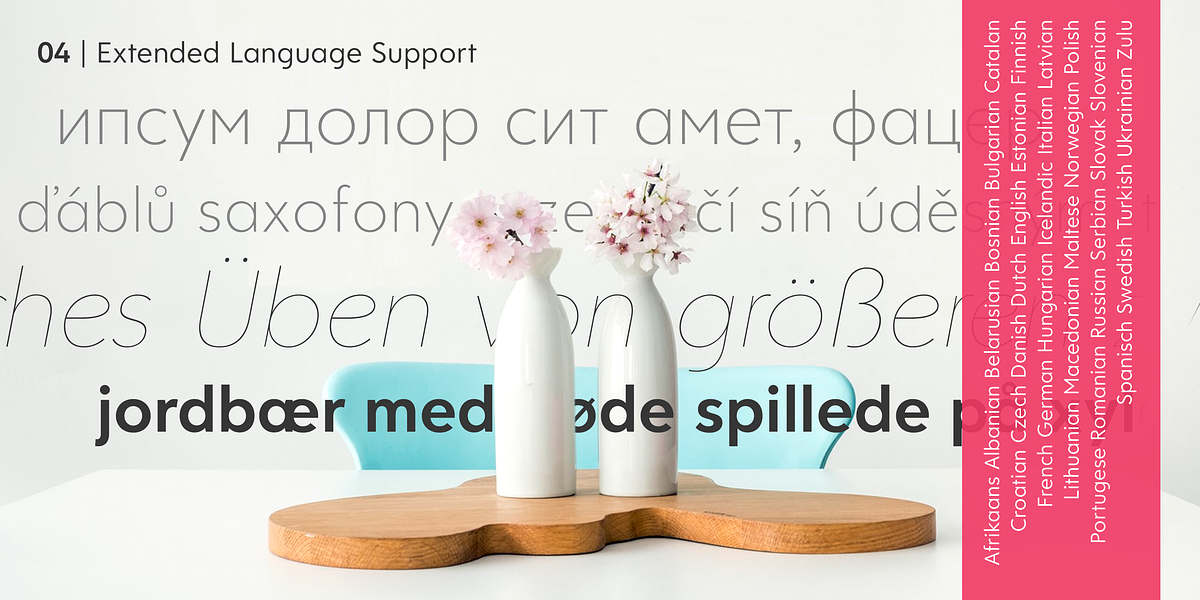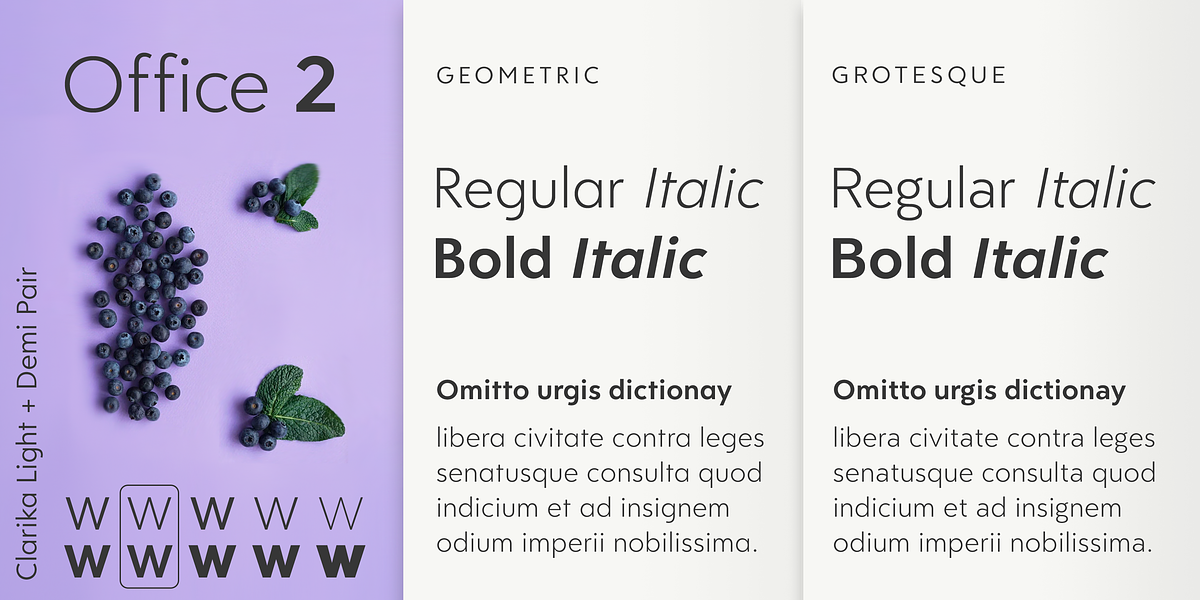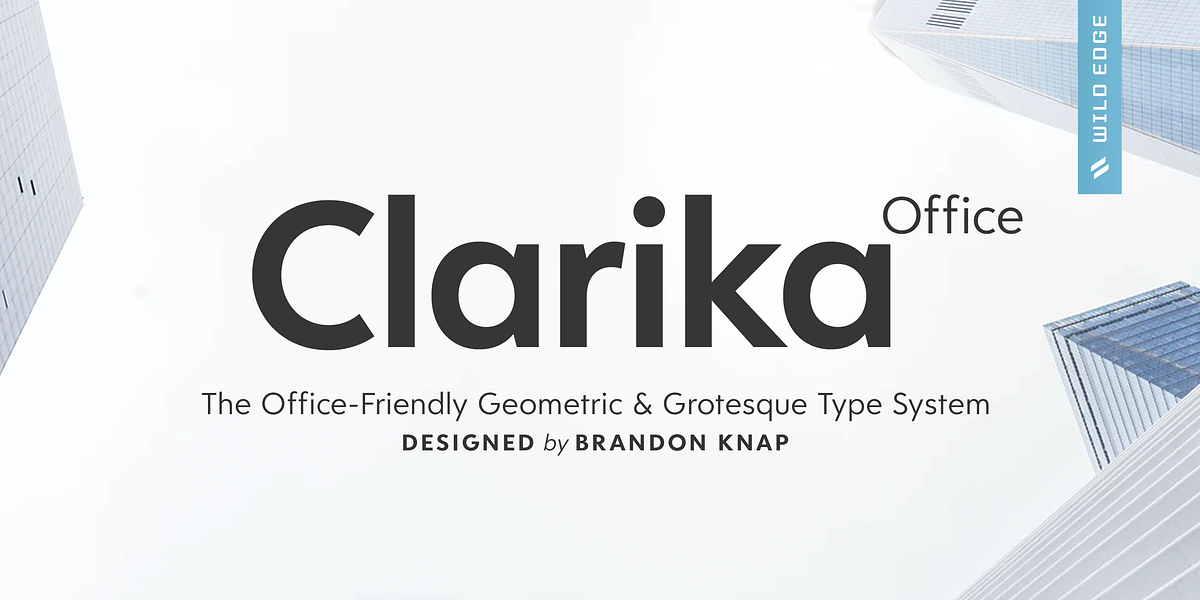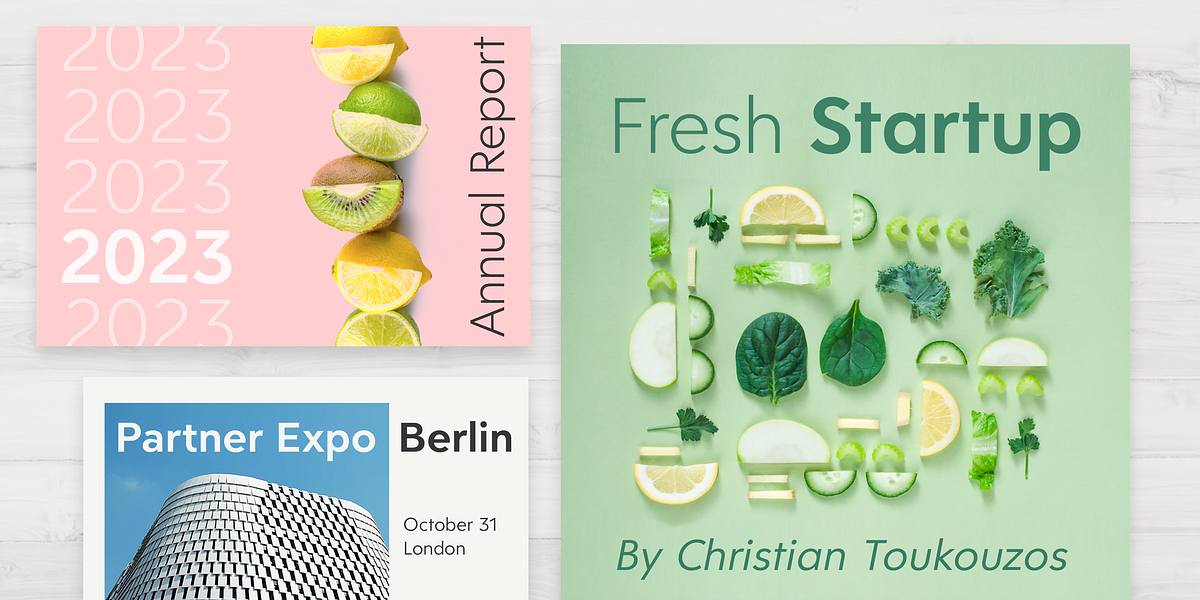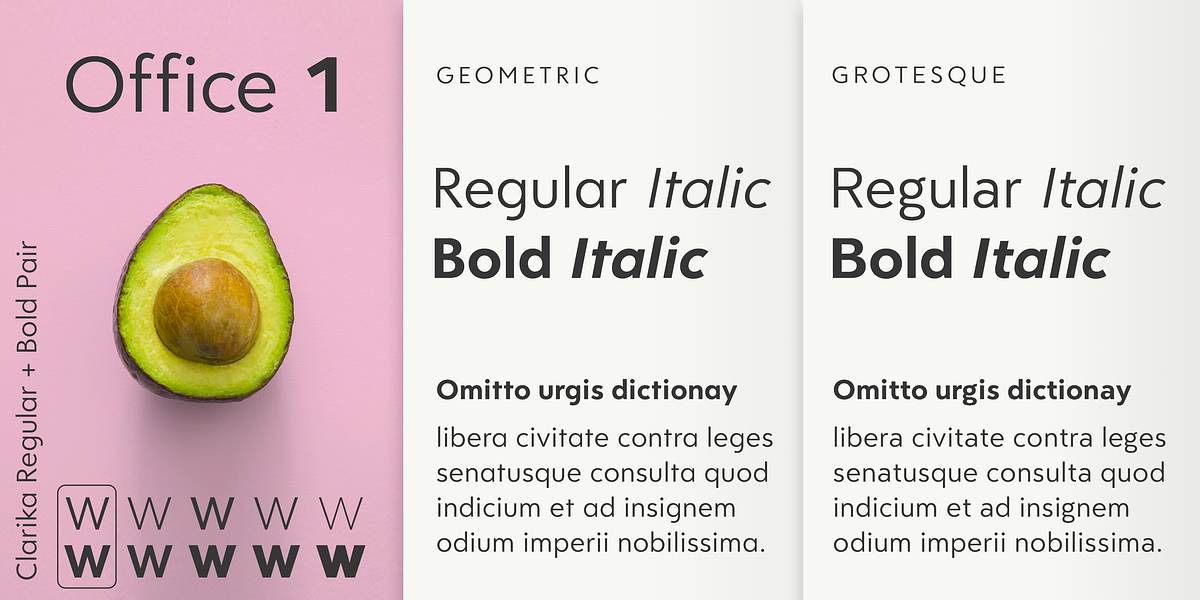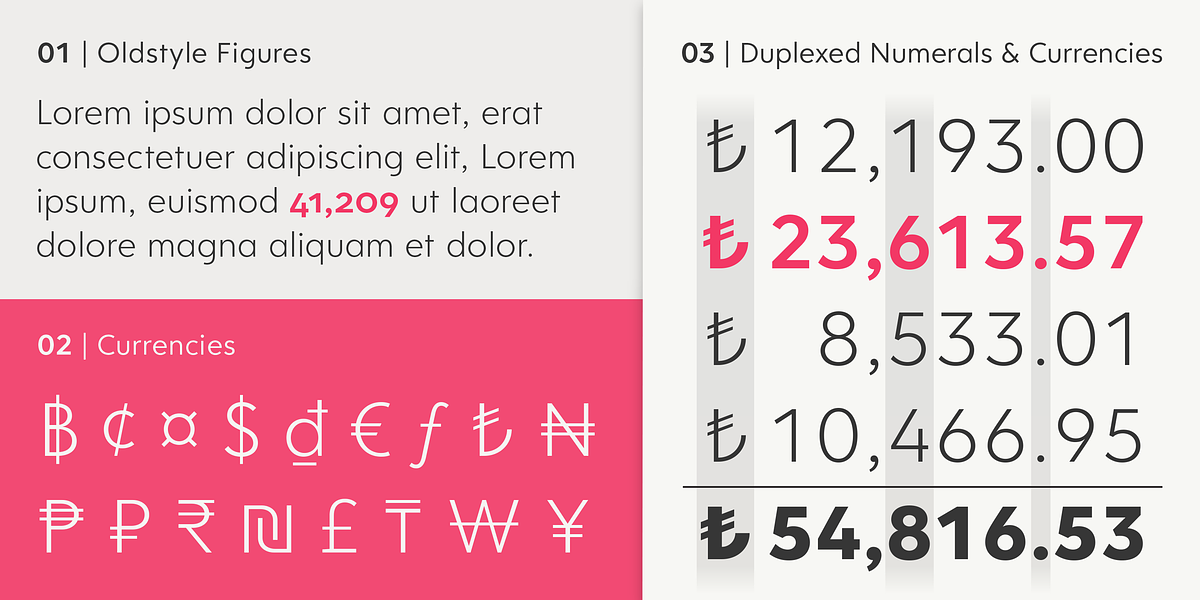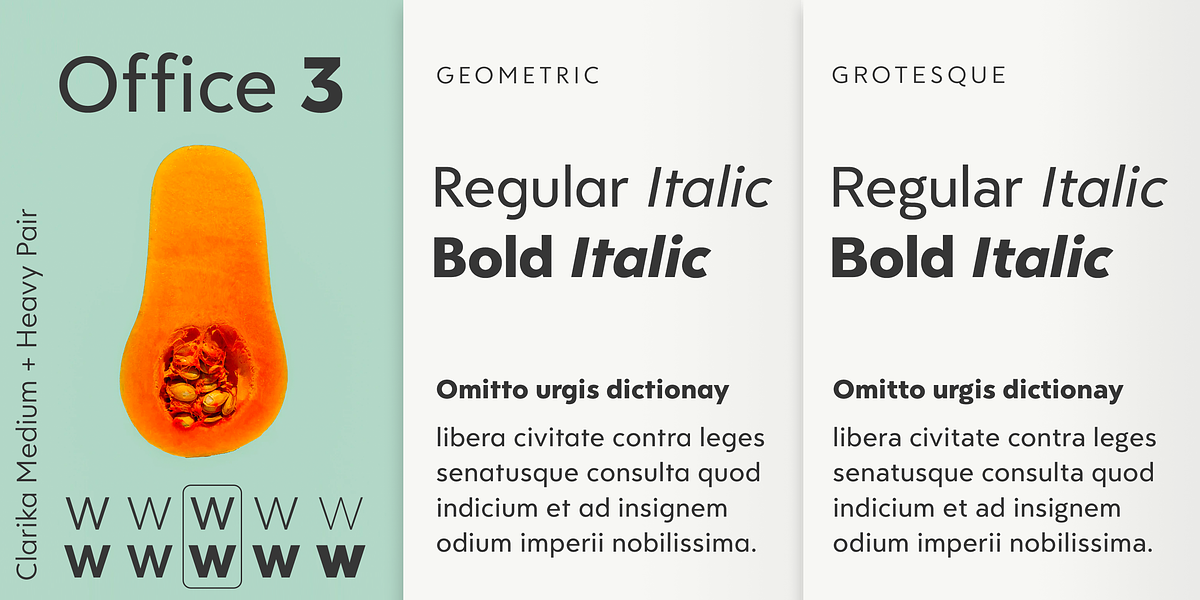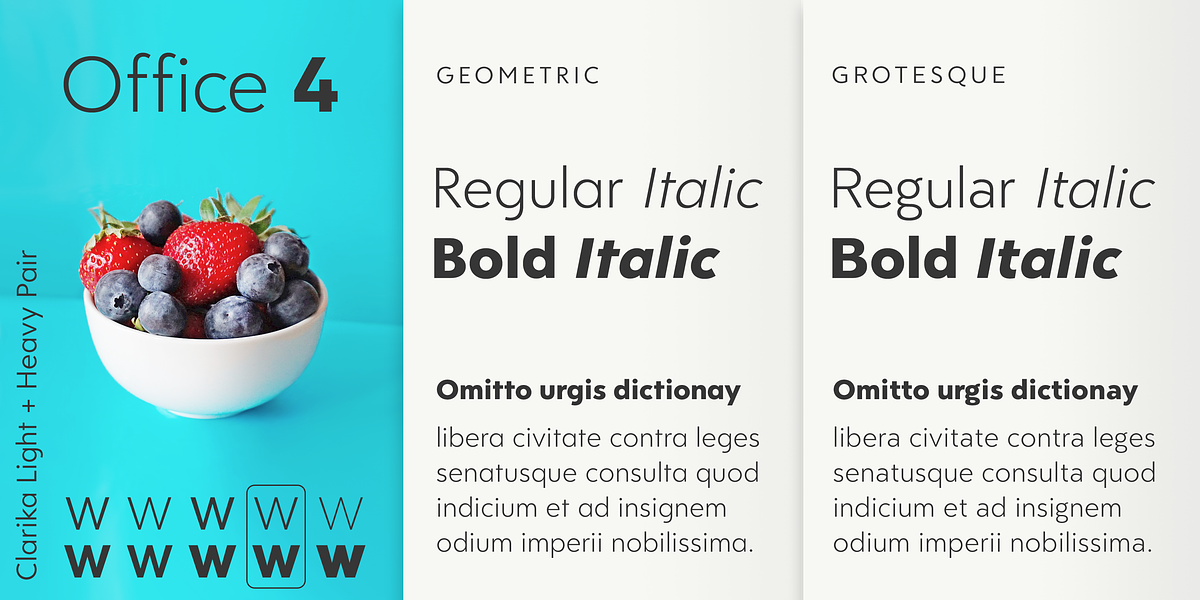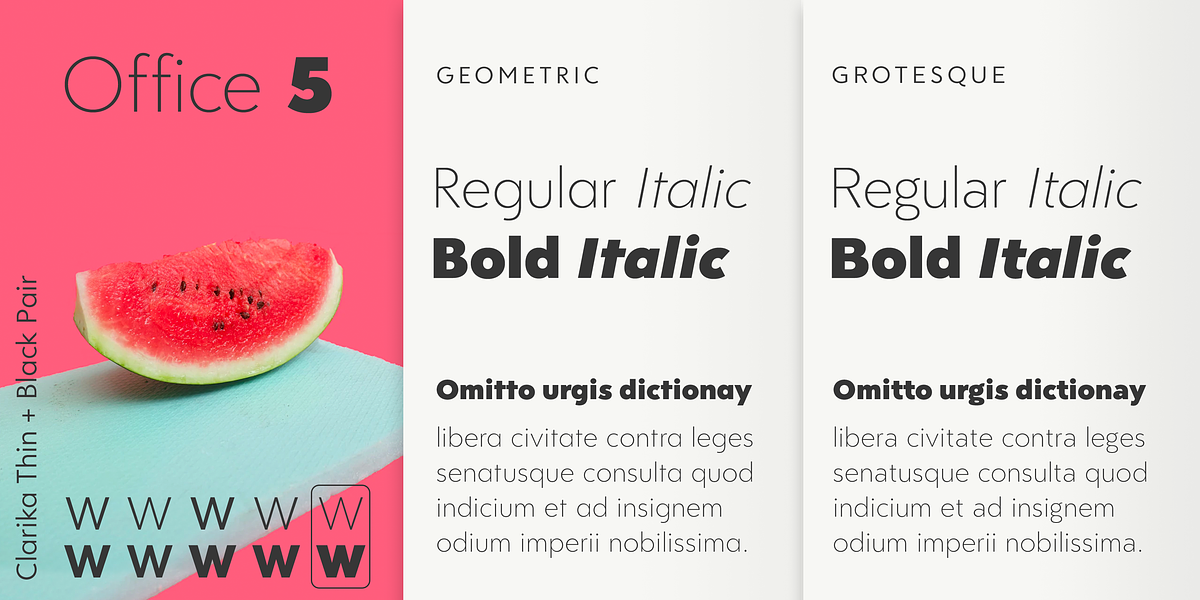
Clarika Office
Clarika is a comprehensive sans-serif font family designed for versatility. It comprises two subfamilies: Clarika Geometric and Clarika Grotesque. The Geometric subfamily emphasizes calculated precision and balanced geometry, while the Grotesque subfamily draws inspiration from traditional grotesque typefaces with elegant page texture and classic detailing. Both subfamilies feature unique notches and angled terminals that enhance legibility and support a wide range of weights. Clarika is well-suited for corporate branding, office documents, and professional communication materials.